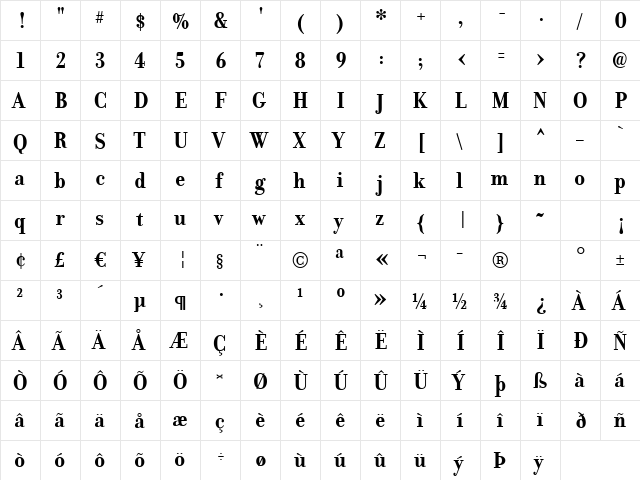
Donatora Bold Font Preview
Donatora Bold
Design Context for Donatora Typeface
Donatora is a composed and adaptable typeface that performs quietly and consistently across a wide range of design contexts. Its bold stroke weight gives it real presence on the page.
Pro Tip: Use Donatora in both headline and body roles to test its range before committing to a single application.